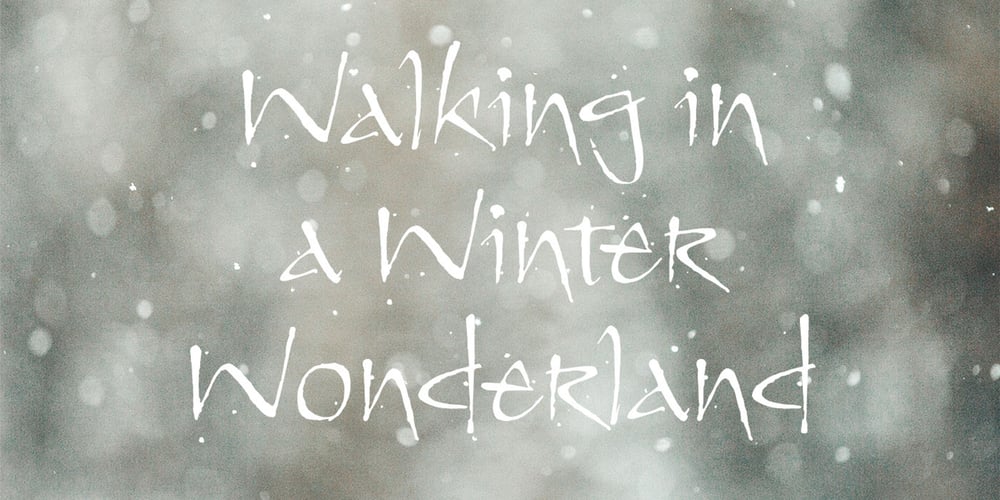
ITC Kendo Font Family was designed by Phill Grimshaw and published by ITC. ITC Kendo contains 1 styles and family package options. ITC Kendo is the work of British designer Phill Grimshaw, suggesting the dash and verve of quick, sketchy calligraphy, complete with splatters of ink. Grimshaw says he worked deliberately against his own habits to create the forms, drawing the letters with slow deliberation” and a pointed pen. He overloaded the pen with ink and drew on rough paper, “applying a lot of pressure at the beginning of a stroke and easing off towards the terminals. Accidental splashes occurred frequently owing to the nib catching the ‘tooth’ of the paper.” Those splashes were refined into features which enhance but do not overwhelm the characters and carefully worked so as not to leave an obvious white strip of unsplattered space between lines and letters. The initial capitals can be used alone or combined with the lowercase alphabet, and the font includes a full set of f-ligatures and some extra ligatures as well as decorative elements.”